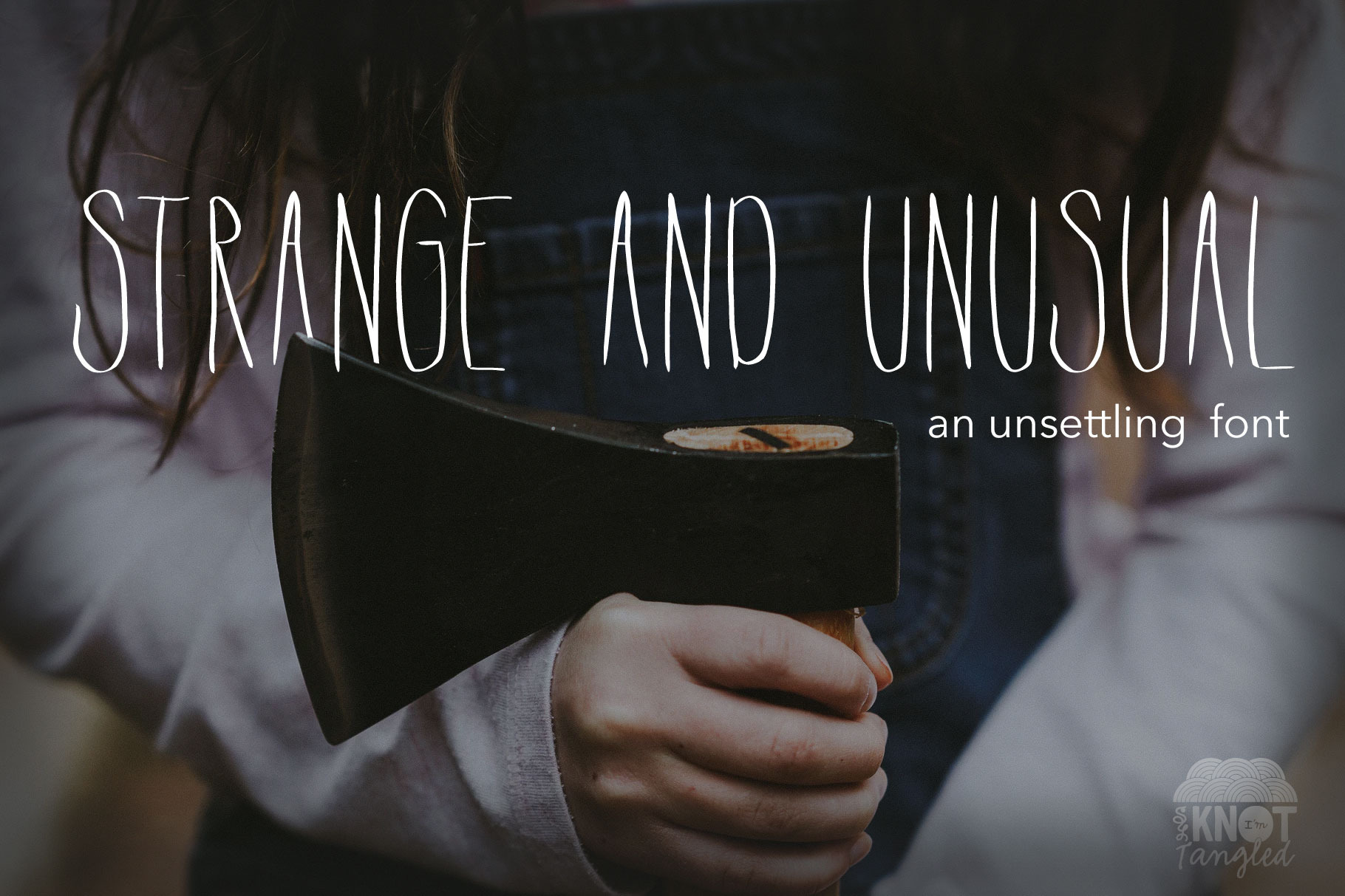
Strange and Unusual Font
The Strange and Unusual font was lovingly created for all your creepy, horror, or Halloween needs! This font would be great for logos, event titles, social media posts, or even merchandise.
This font includes uppercase letters, a smaller version for lowercase letters, numbers, Latin characters (accents), and punctuation.